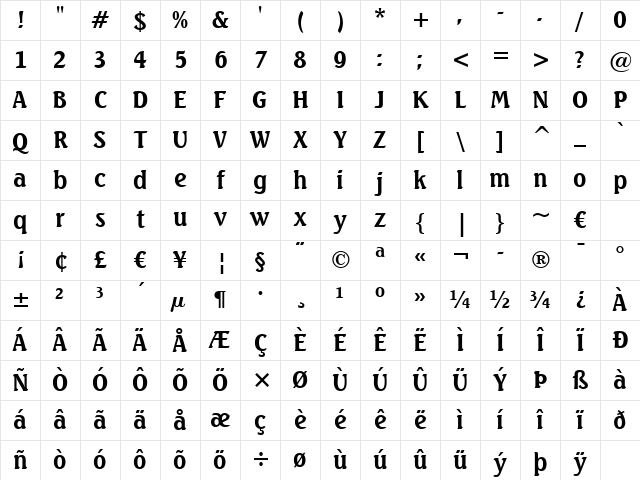
Seagull Lt BT Bold
Design Context for Seagull Lt BT
Seagull Lt BT is a composed and adaptable typeface that performs quietly and consistently across a wide range of design contexts. Its bold stroke weight gives it real presence on the page.